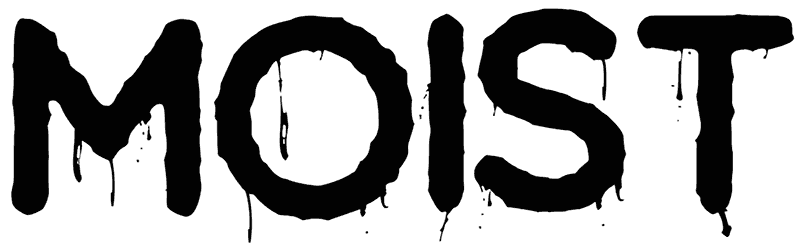
Moist Font
Moist is one of your best options if you want to multiply your sales by organizing brilliant ads. This blood font provides a great marketing opportunity on horror movie posters, crime book covers, and Halloween packaging.
So, if you are looking for a scary atmosphere that will double the excitement of your sales festivals, this dripping font offers many ways to attract the audience, even without small letters.